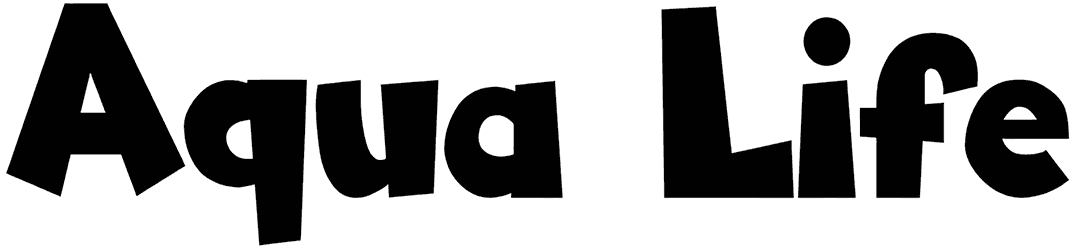
Aqua Life Font
If you are working on a funny design, this cartoon font will be a nice decoration for your words. Aqua Life has a bulky and playful letter style that can convey a cheerful mood. Don’t lose this item and try it for your creative designs, such as posters, comics, games, or the like, and give them an appealing face.